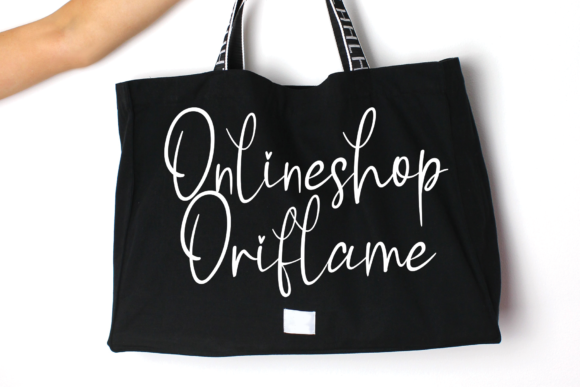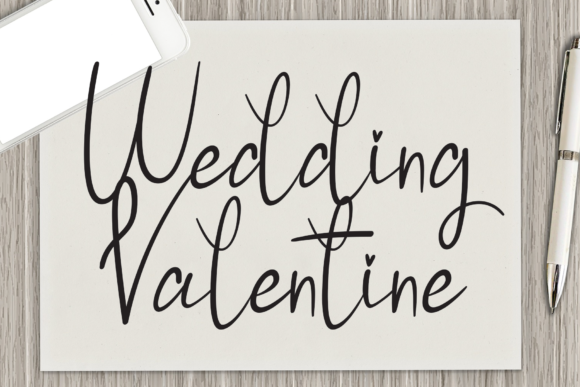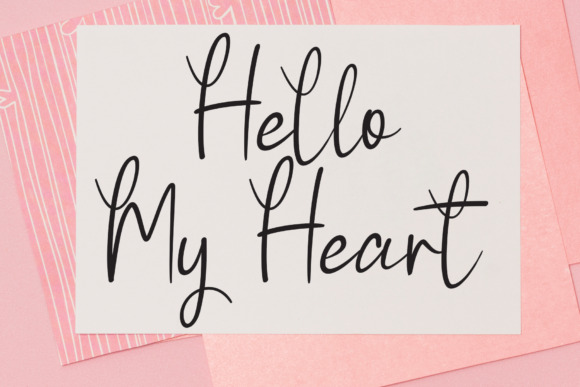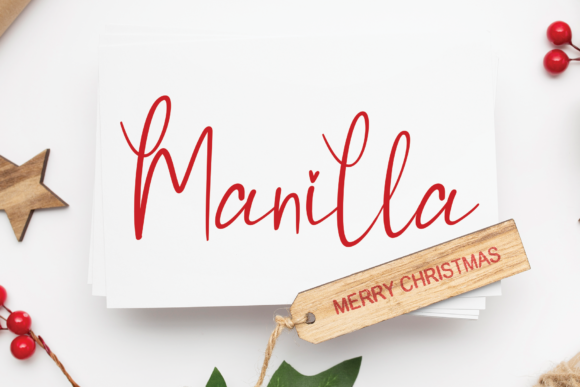
Introducing Butterfly Font: Elevate Your Designs with Elegance
Are you a designer or crafter looking for a font that exudes elegance and sophistication? Look no further than the Butterfly Font. This beautiful script font is designed to add a touch of class and refinement to your projects, making it perfect for a wide range of applications.
What Makes Butterfly Font Special?
Butterfly Font is an elegant script font that features a very delicate and classy look. Not too thin and not too thick, it strikes the perfect balance between subtlety and visibility. The font’s varied strokes and balanced design make it ideal for use in a variety of contexts, from wedding invitations and event branding to packaging and digital media.
Key Features of Butterfly Font
- Elegant Script Design: Butterfly Font boasts a beautiful, flowing script design that adds a touch of sophistication to any project.
- Balanced Strokes: The font’s strokes are carefully crafted to be neither too thin nor too thick, ensuring that your text is always legible and visually appealing.
- Varied and Versatile: With its unique blend of thick and thin strokes, Butterfly Font is perfect for use in a wide range of applications, from formal events to everyday branding.
Butterfly Font is a versatile font that can be used by designers and crafters alike. Whether you’re creating wedding invitations, crafting beautiful stationery, or designing eye-catching packaging, this font is sure to elevate your work. Its elegant design and balanced strokes make it perfect for use in:
- Wedding invitations and event branding
- Stationery and greeting cards
- Digital media, including social media graphics and blog headers
Tips for Using Butterfly Font
To get the most out of Butterfly Font, here are a few tips to keep in mind:
- Use it as a headline font: Butterfly Font is perfect for use as a headline font, where its elegant design can really shine.
- Pair it with a sans-serif font: For body text, consider pairing Butterfly Font with a clean, sans-serif font to create a beautiful contrast.
- Experiment with colors and textures: Don’t be afraid to get creative with colors and textures when using Butterfly Font. Its elegant design looks great in a variety of colors and can be paired with a range of textures and patterns.
If you’re looking for a font that exudes elegance and sophistication, look no further than Butterfly Font. With its delicate and classy design, balanced strokes, and versatile nature, this font is perfect for designers and crafters alike. Whether you’re creating wedding invitations, packaging, or digital media, Butterfly Font is sure to elevate your work and add a touch of refinement to your projects.